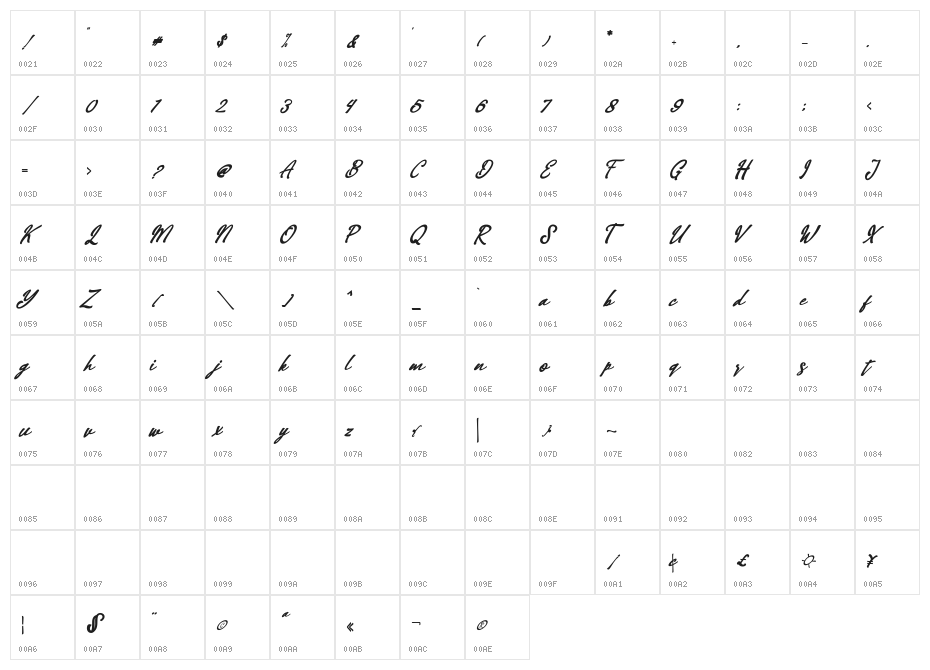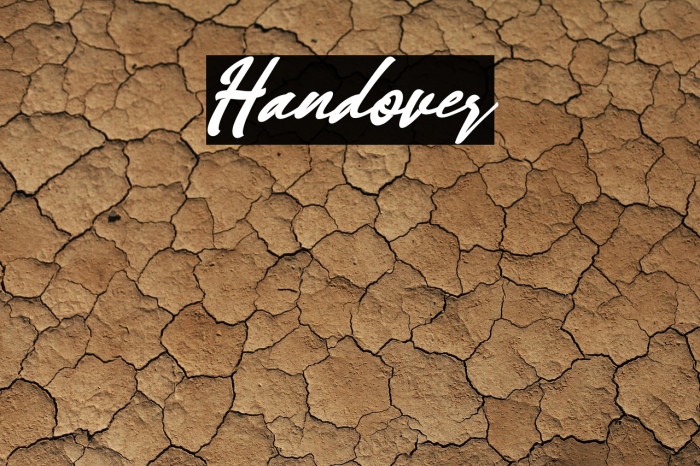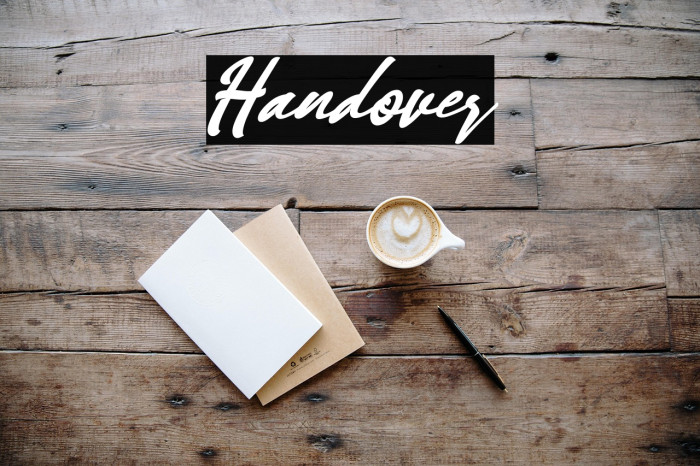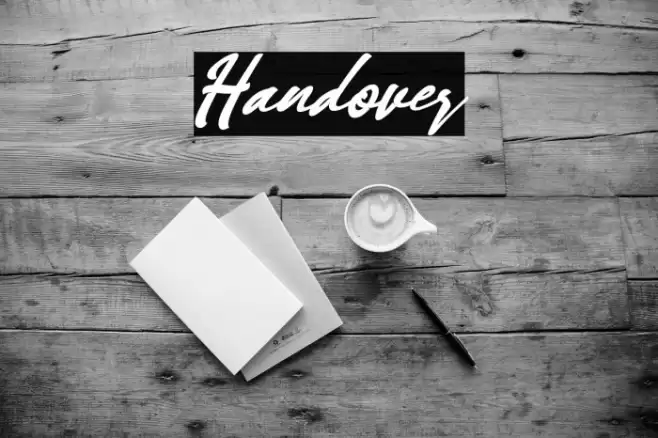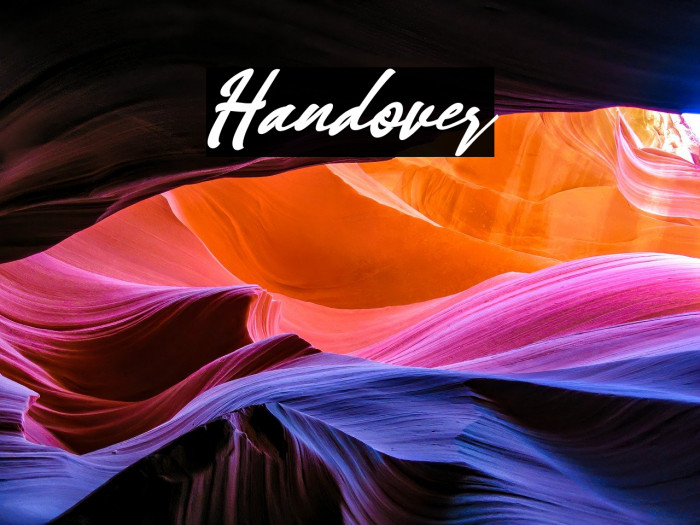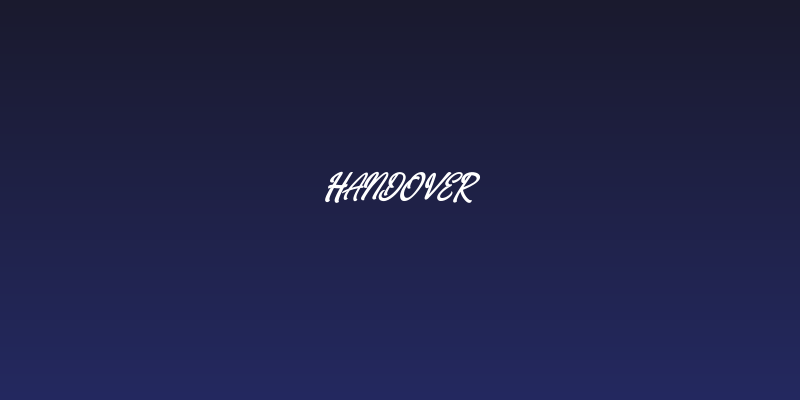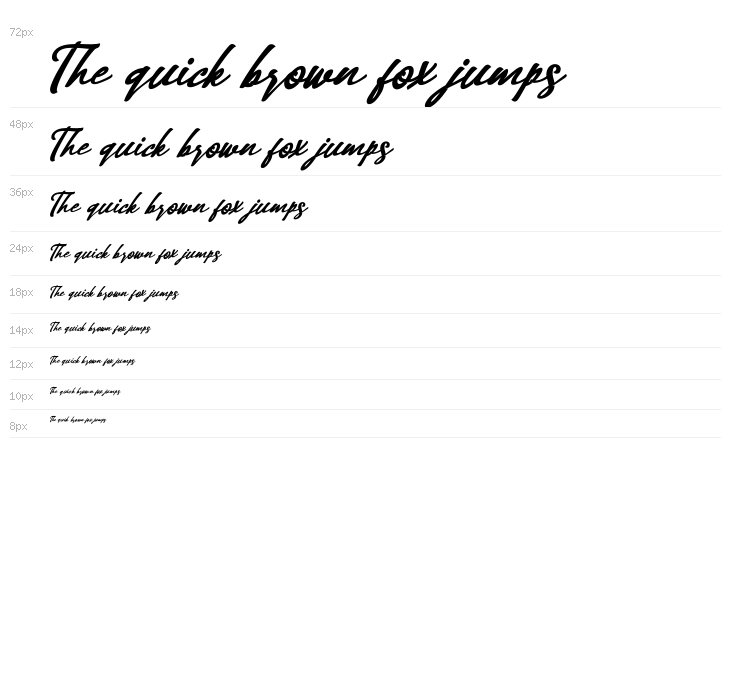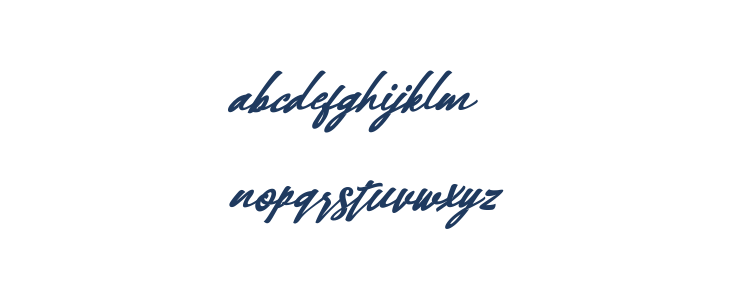
Handover Font
Handover Description
This font features a flowing, cursive style with elegant, sweeping strokes that give it a handwritten appearance. The letters are connected, creating a sense of continuity and fluidity. The uppercase letters are bold and prominent, while the lowercase letters maintain a consistent style with slightly less emphasis. The numerals are styled to match the cursive flow, adding a cohesive look across all characters. Special characters are included, maintaining the same elegant style. The overall design is sophisticated and artistic, making it suitable for creative and decorative purposes.